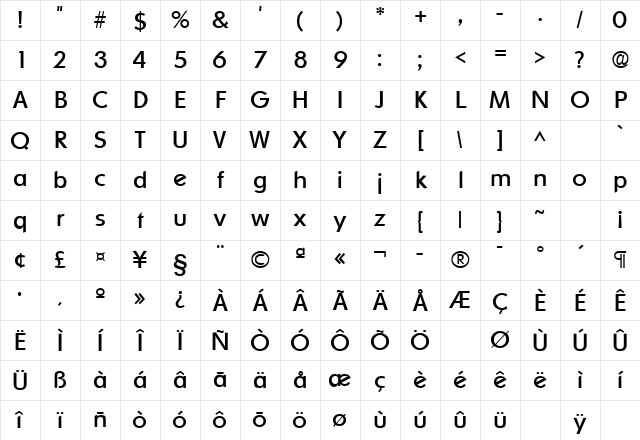
Minimal SF Regular Free Font
Minimal SF Regular
Design Context for Minimal SF
Minimal SF is a composed and adaptable typeface that performs quietly and consistently across a wide range of design contexts.